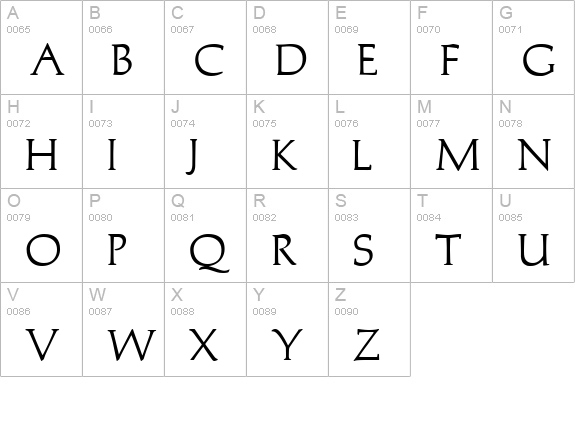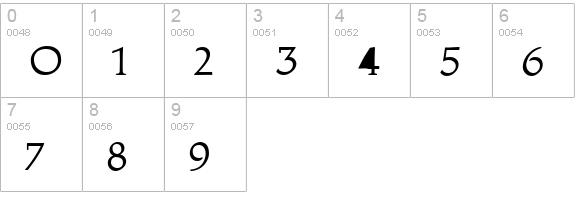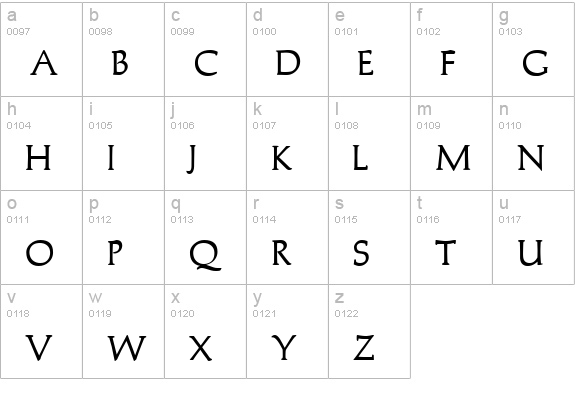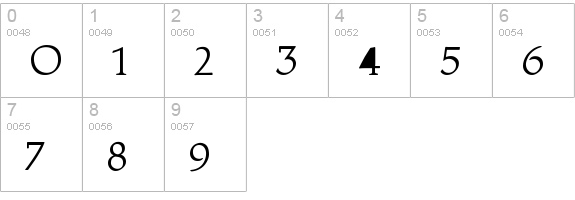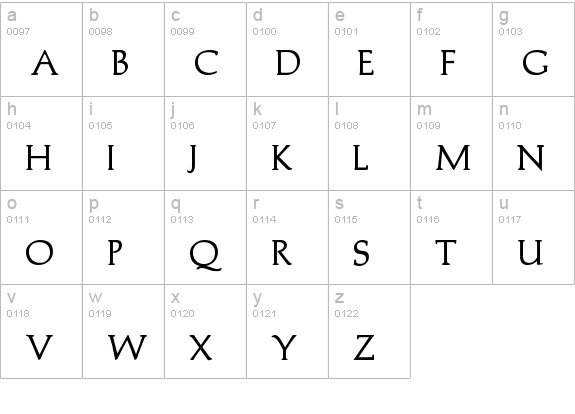
Trajan'sCaps Bold Font Details
Trajan'sCaps Bold is a strong, high-contrast variant in the Trajan'sCaps typeface family \xE2\x80\x94 well suited to headlines, attention-grabbing titles, and strong calls-to-action.
Introducing Trajan'sCaps Bold, a captivating and powerful font that exudes elegance and sophistication. Designed with meticulous attention to detail, this bold typeface is perfect for making a bold statement in any design project. With its strong and commanding presence, Trajan'sCaps Bold demands attention and effortlessly draws the eye. Its clean lines and bold strokes add a touch of authority and professionalism, making it an ideal choice for headlines, logos, and branding materials. This versatile font is suitable for a wide range of applications, from print to digital media. Whether you're designing a striking poster, a sleek website, or an impactful advertisement, Trajan'sCaps Bold will elevate your design to new heights. One of the best aspects of Trajan'sCaps Bold is that it is available for free! Yes, you heard it right. This remarkable font can be freely downloaded at FontsMarket.com, ensuring that you have access to this exceptional typeface without any cost or limitations. Don't miss out on the opportunity to enhance your designs with the bold and captivating Trajan'sCaps Bold font. Download it for free at FontsMarket.com and unlock the potential to create stunning and impactful designs that will leave a lasting impression.